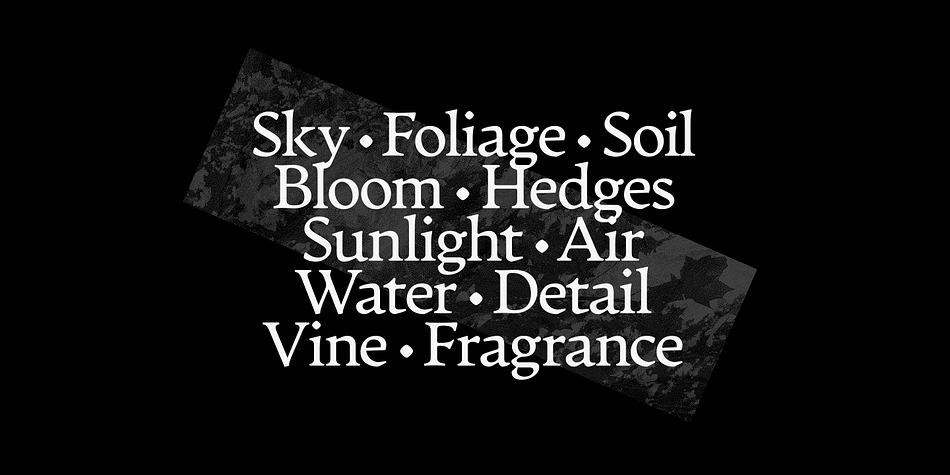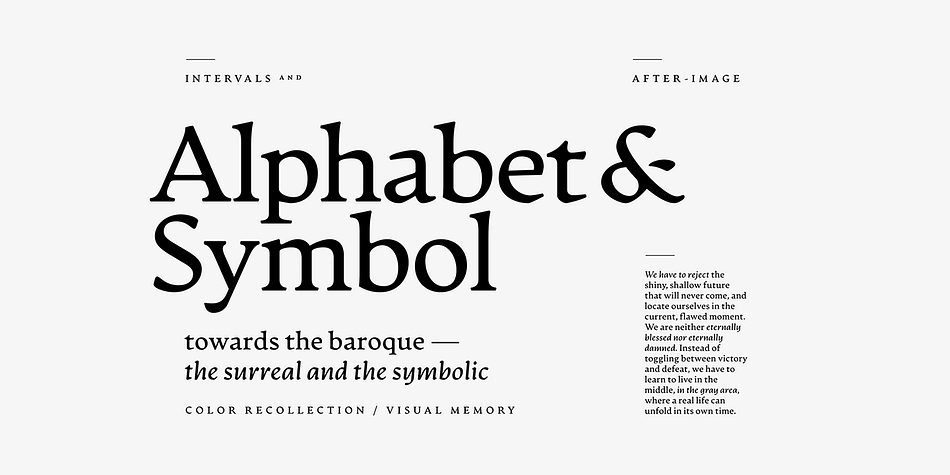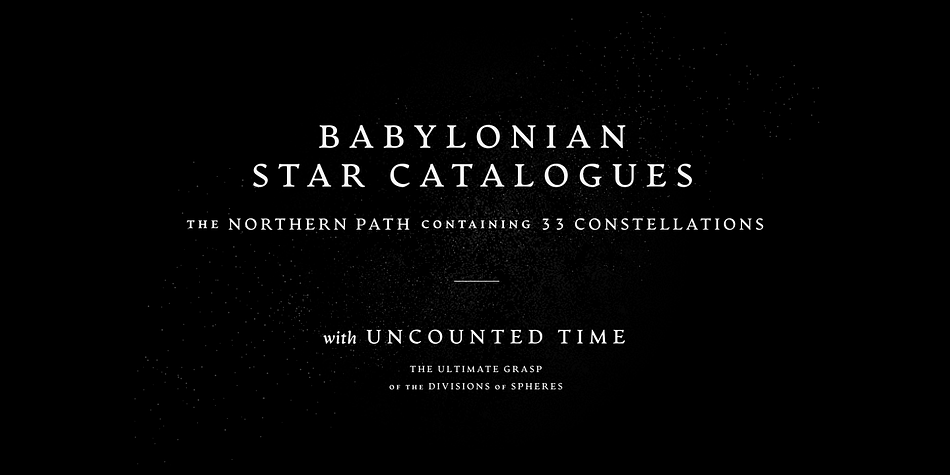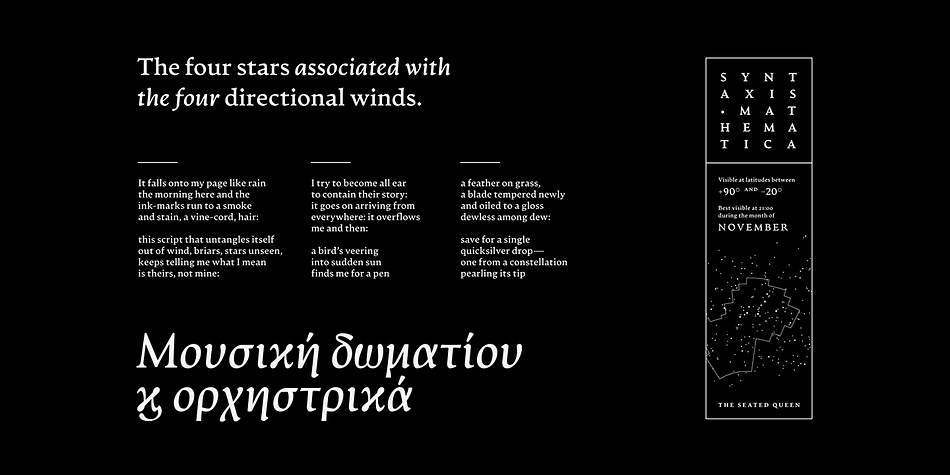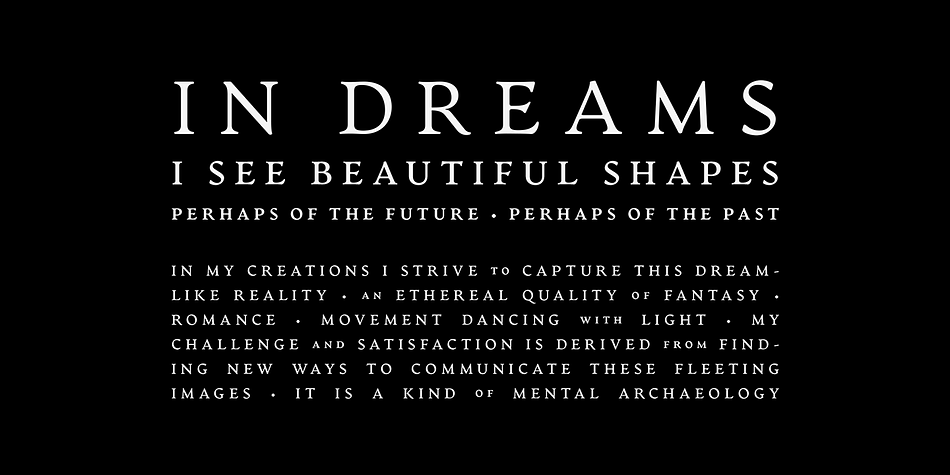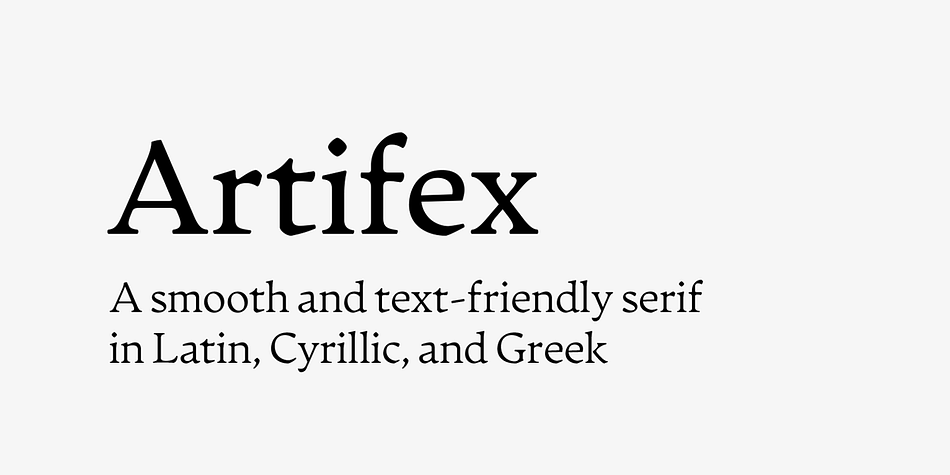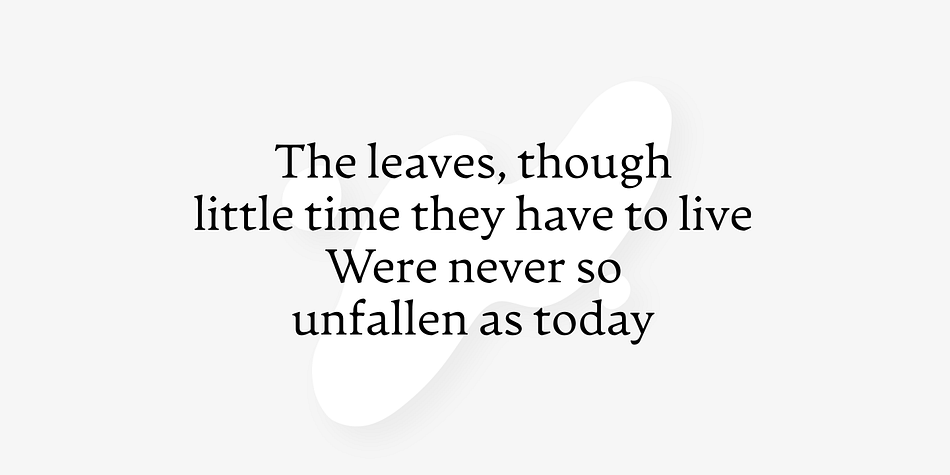
Designed by Connary Fagen, Artifex CF is a serif font family. This typeface has sixteen styles and was published by Connary Fagen Type Design.
Artifex CF is a text-friendly serif, designed to be easy on the eyes and melt into the page (or screen). Gentle, subtle serifs aid the flow of reading without being ornate or stiff, while a near-upright italic design adds emphasis without distraction. Though created for text, Artifex can double as a handsome display typeface, with a medium-contrast design and details that scale gracefully.
• Eight weights
• True italics
• OpenType features (fractions, alternates, ligatures)
• Latin-character multilingual support